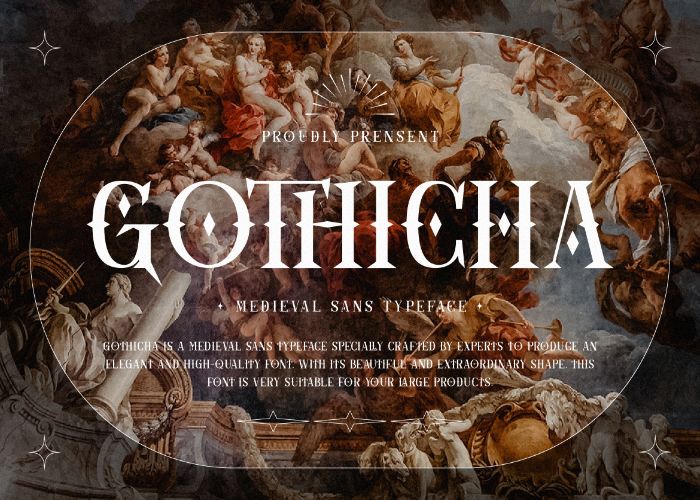
Free Medieval Font
Crafted by experts to produce an elegant and high-quality font. Presenting The Gothicha Medieval Sans Free Font. With its beautiful and extraordinary shape, this font is suitable for your large products.
This free font is perfect for branding projects, logos, wedding designs, social media posts, advertisements, product packaging, product designs, labels, photography, watermarks, invitations, stationery, and any projects that need a handwriting style.
- Ligature & Alternate